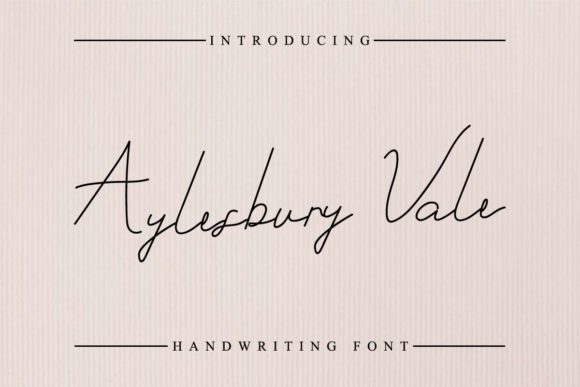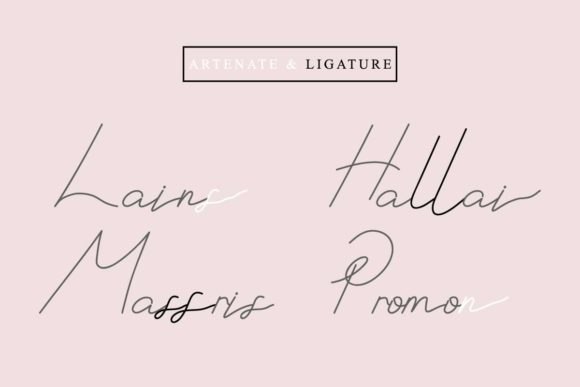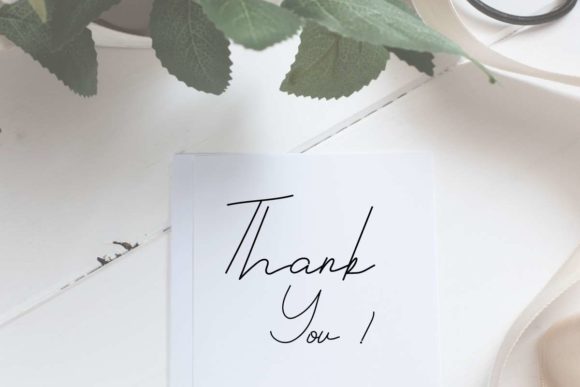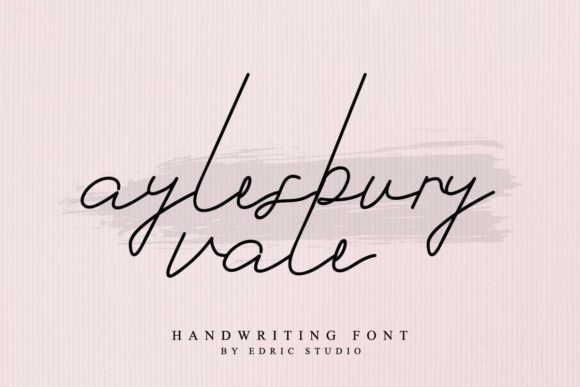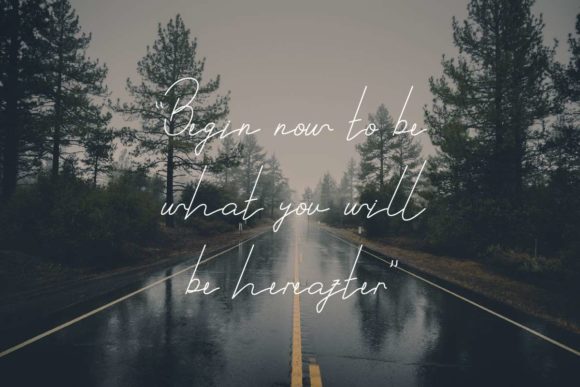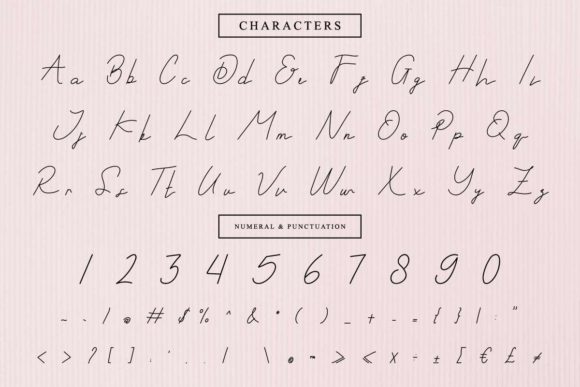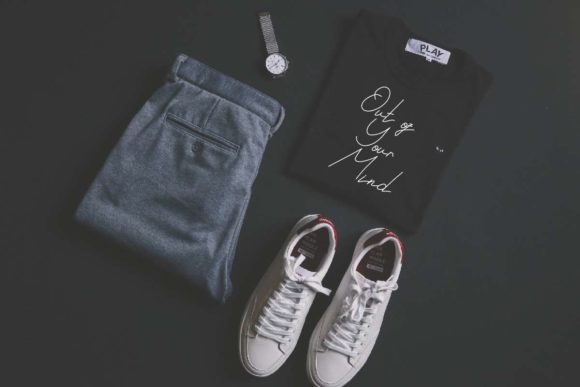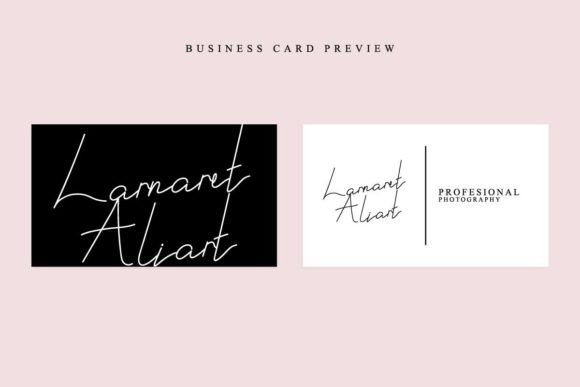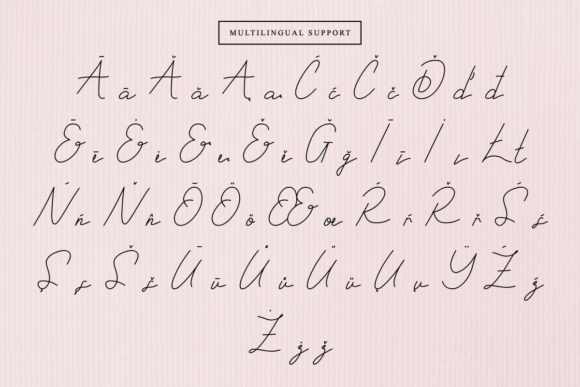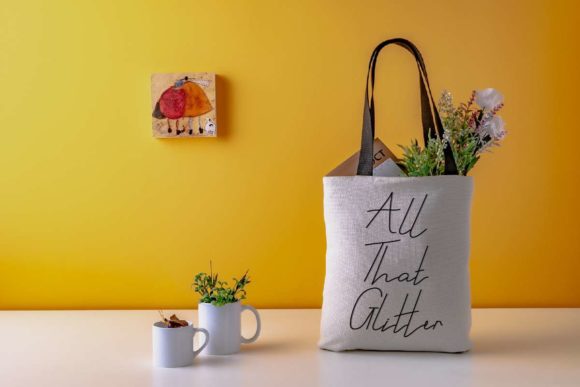
Aylesbury Vale Font
About Aylesbury Vale Font
Aylesbury Vale is a thin and incredibly script font with wonderfully authentic letters. Use it to add a personal feel to your next design idea!